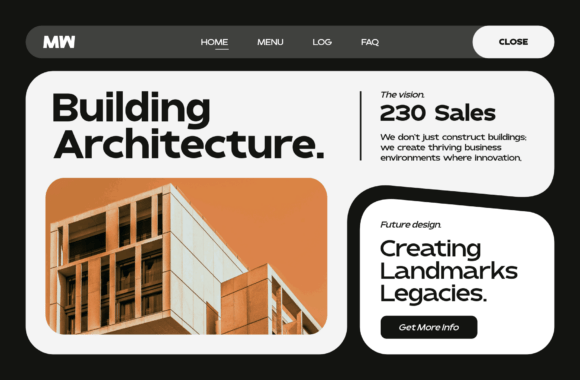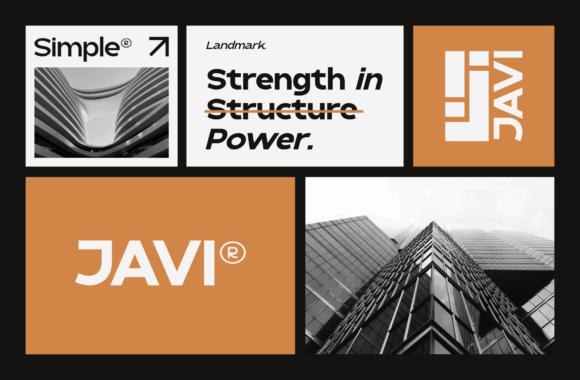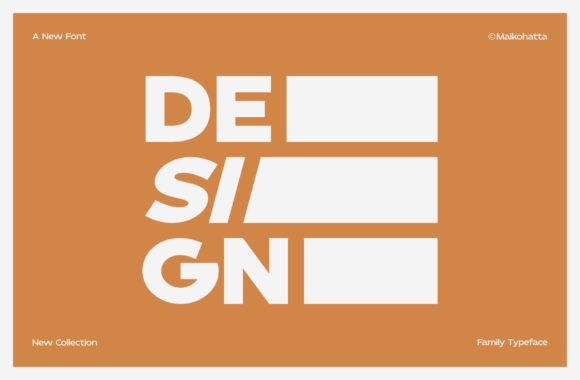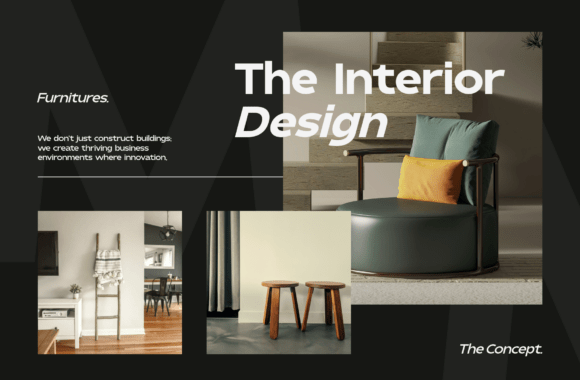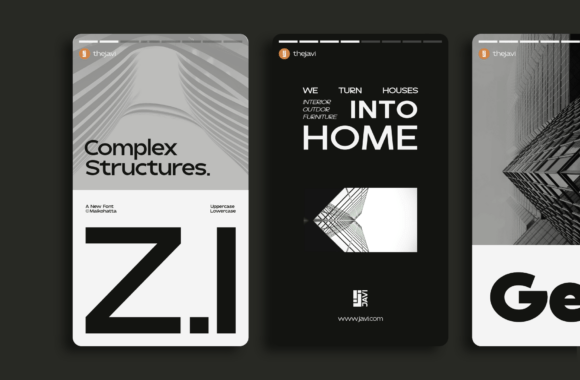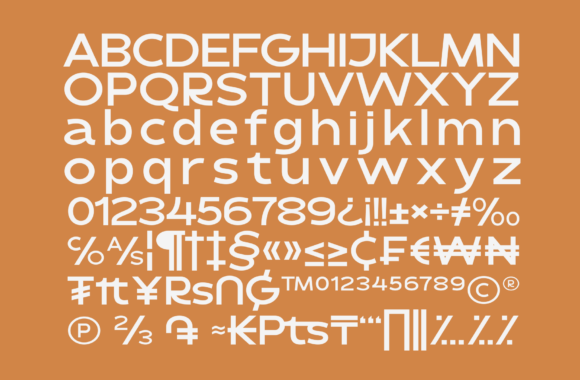
Introducing Genzo: The Ultimate Modern Sans Serif Typeface for Graphic Design
In the world of graphic design, typography plays a crucial role in conveying messages, expressing creativity, and capturing the audience’s attention. A well-designed font can elevate a project from ordinary to extraordinary. Today, we’re excited to introduce Genzo, a modern sans serif typeface that is poised to revolutionize the way you approach text displays in your graphic design projects.
What is Genzo?
Genzo is a highly versatile sans-serif font family designed to cater to the diverse needs of graphic designers, crafters, and typography enthusiasts. Its sleek and modern design ensures that your text stands out, whether it’s used for branding, advertising, digital media, or any other application where clean and readable text is paramount.
Key Features of Genzo
- Variety of Styles: Genzo comes in multiple styles, offering you the flexibility to choose the perfect look for your project. Whether you’re aiming for something elegant and subtle or bold and attention-grabbing, Genzo has got you covered.
- Clean and Modern Aesthetic: The sans-serif design of Genzo provides a clean and modern aesthetic that fits well with current design trends. Its simplicity ensures that your message is conveyed clearly without any distractions.
- High Versatility: The versatility of Genzo makes it suitable for a wide range of applications, from digital screens to print materials. This adaptability is invaluable in today’s multi-platform world.
- Easy to Read: Despite its modernity, Genzo maintains excellent readability. This is crucial for ensuring that your audience can easily consume the information you’re presenting.
Applications of Genzo
The applications of Genzo are vast and varied. Here are a few examples of how you can utilize this versatile typeface:
- Branding: Create a lasting impression with Genzo by using it for your brand’s logo, marketing materials, and website.
- Digital Media: Enhance your digital content with Genzo, making it more engaging and accessible to your audience.
- Print Materials: From brochures and flyers to posters and business cards, Genzo brings a professional and contemporary look to your print materials.
- Web Design: Improve the user experience on your website with Genzo, ensuring that your content is presented in a clear and attractive manner.
Why Choose Genzo?
In a sea of typefaces, Genzo stands out for several reasons:
- Uniqueness: While Genzo fits into the modern sans serif category, its unique design elements set it apart from more generic fonts.
- Legibility: The careful crafting of Genzo ensures that it remains highly legible, even at smaller sizes.
- Adaptability: With its range of styles, Genzo can adapt to the needs of various projects, making it a valuable addition to any designer’s toolkit.
Genzo is more than just a font – it’s a design solution. Its modern sans serif design, variety of styles, and high versatility make it an ideal choice for designers and crafters looking to elevate their projects. Whether you’re working on a branding campaign, creating digital content, or designing print materials, Genzo offers the flexibility and aesthetic appeal you need to succeed. Experience the difference Genzo can make in your graphic design projects and discover a new level of creativity and professionalism.